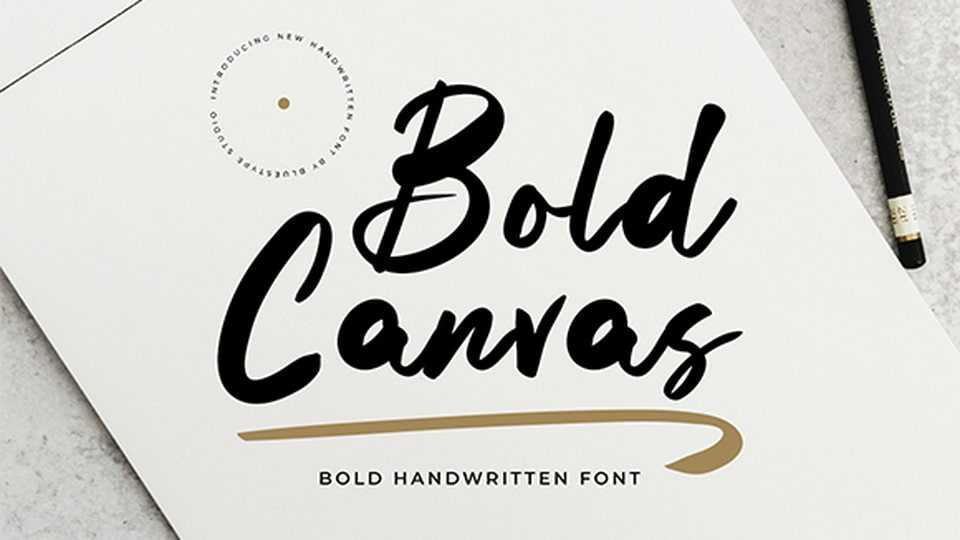
Download Bold Canvas font, a typeface made with manual handwriting on paper that has a beautiful and natural curve shape with thick and thin characteristics.